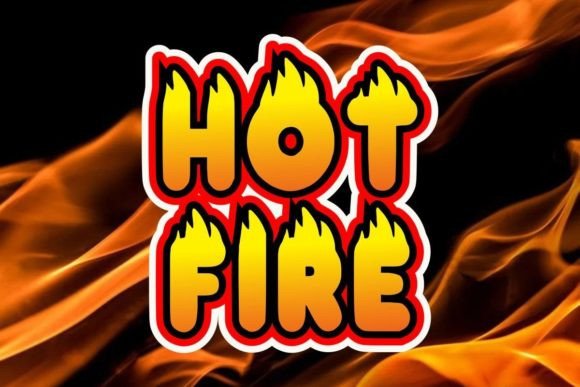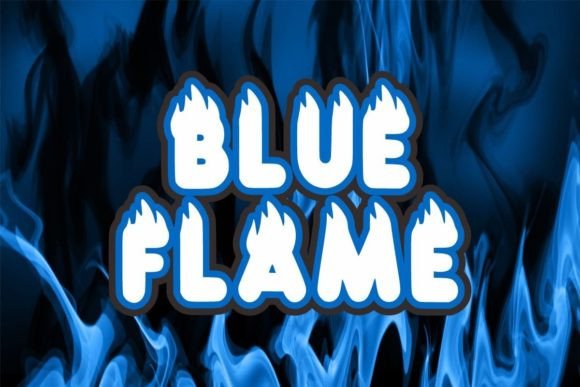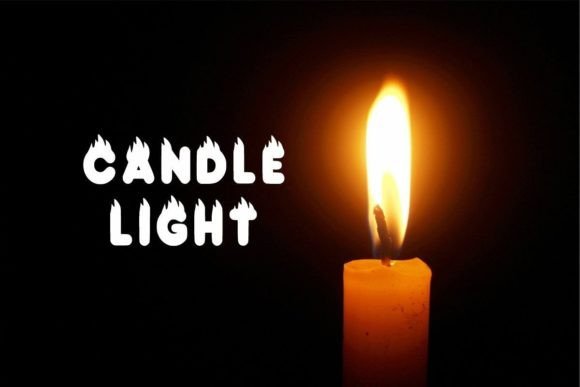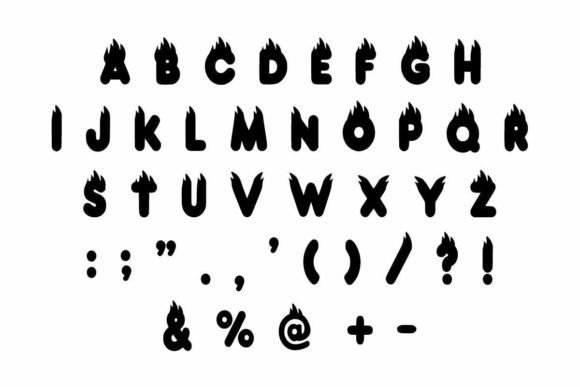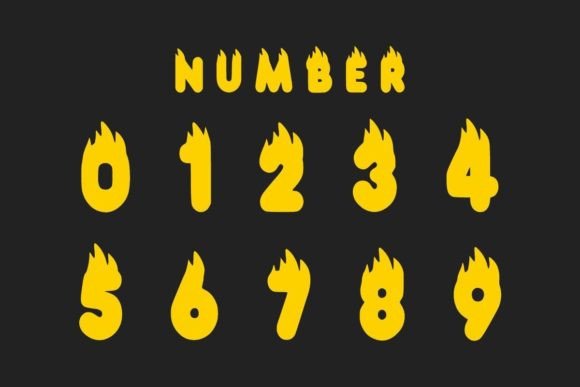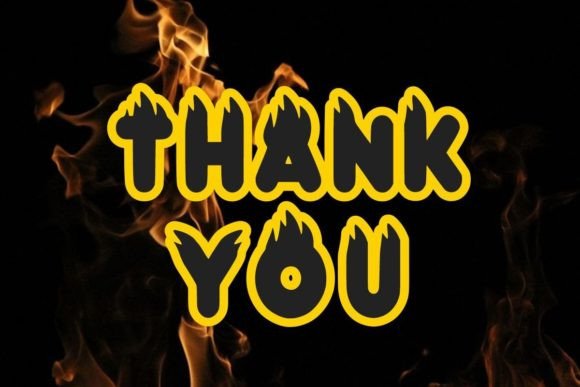
Introducing Flame Bold Font: The Ultimate Creative Display Font
Are you tired of using the same old fonts for your designs? Do you want to add a touch of creativity and hotness to your projects? Look no further than Flame Bold Font! This stunning display font is perfect for crafts, digital design, logos, presentations, greeting cards, and so much more. In this article, we’ll dive into the world of Flame Bold Font and explore its features, benefits, and uses.
What is Flame Bold Font?
Flame Bold Font is a creative and hot display font designed to make your designs stand out. Its unique and bold style is perfect for adding a touch of personality to your projects. Whether you’re a designer, crafter, or DIY enthusiast, Flame Bold Font is the perfect choice for anyone looking to add some excitement to their work.
Key Features of Flame Bold Font
- Unique and Bold Style: Flame Bold Font features a one-of-a-kind design that’s sure to turn heads. Its bold and fiery style is perfect for making a statement.
- High-Quality Design: This font is designed with high-quality and precision, ensuring that it looks great in any size or application.
- Easy to Read: Despite its bold style, Flame Bold Font is easy to read and understand, making it perfect for use in a variety of projects.
- Versatile: Flame Bold Font can be used in a wide range of projects, from crafts and digital design to logos, presentations, and greeting cards.
Benefits of Using Flame Bold Font
So, why choose Flame Bold Font for your projects? Here are just a few benefits of using this amazing font:
- Adds Personality to Your Designs: Flame Bold Font is the perfect way to add some personality and flair to your designs. Its unique style ensures that your projects will stand out from the crowd.
- Perfect for DIY Projects: If you’re a crafter or DIY enthusiast, Flame Bold Font is a must-have. It’s perfect for use in handmade cards, scrapbooking, and other craft projects.
- Great for Digital Design: Flame Bold Font is also perfect for digital designers. Its bold style and high-quality design make it perfect for use in logos, branding, and other digital projects.
Uses of Flame Bold Font
So, what can you use Flame Bold Font for? The possibilities are endless! Here are a few ideas to get you started:
- Crafts: Use Flame Bold Font to add a personal touch to your handmade cards, scrapbooking, and other craft projects.
- Digital Design: Flame Bold Font is perfect for use in logos, branding, and other digital projects.
- Logos: Create a bold and eye-catching logo with Flame Bold Font.
- Presentations: Add some excitement to your presentations with Flame Bold Font.
- Greeting Cards: Use Flame Bold Font to create unique and personalized greeting cards.